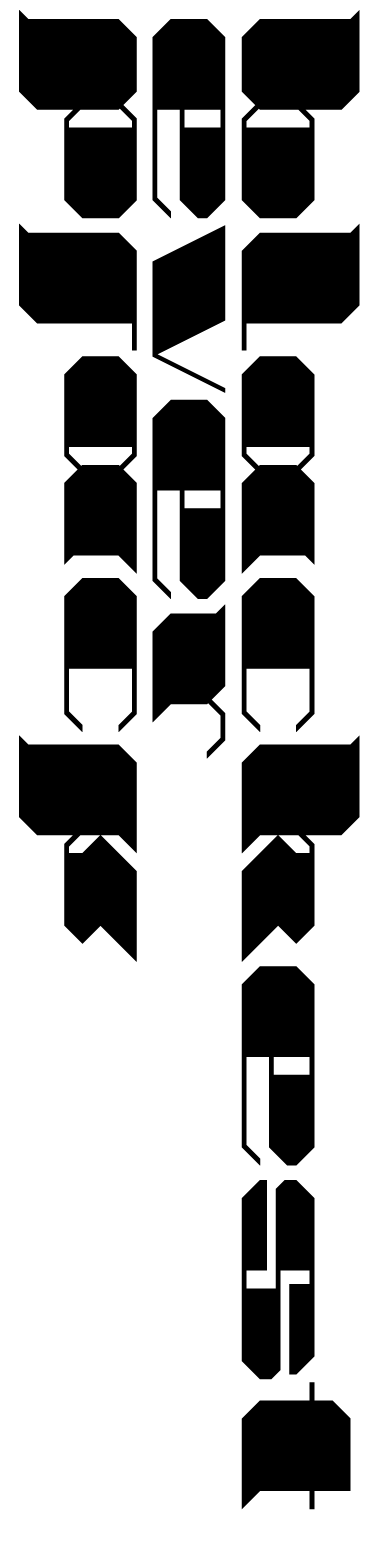
blackesteverblack
An angular "blackest black" that is firm and great for display type. Very creative with the angles! 10/10 + fav.
Wow! what a strong, confident design.
love the thickness!